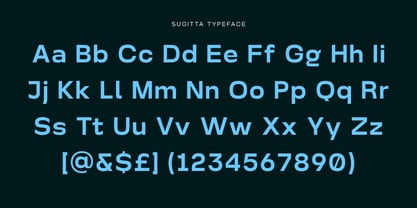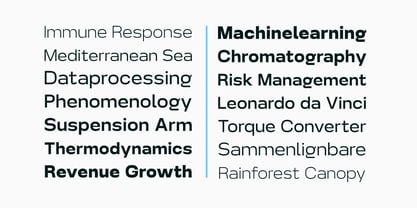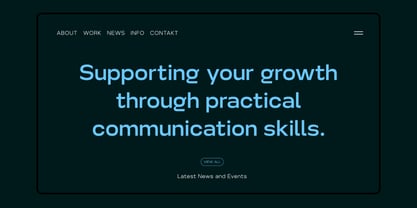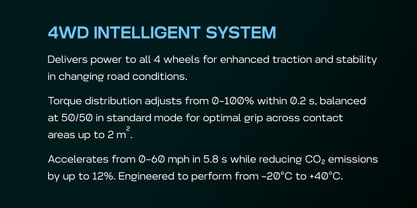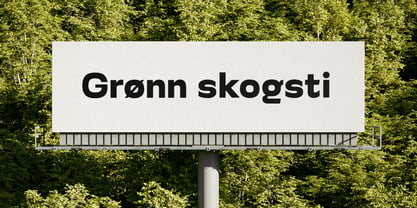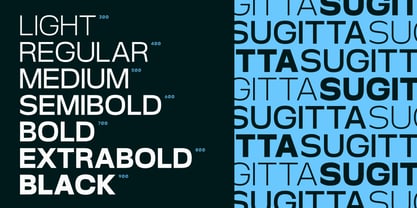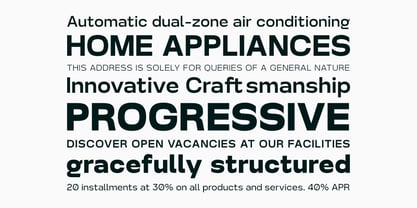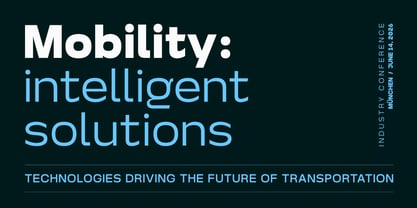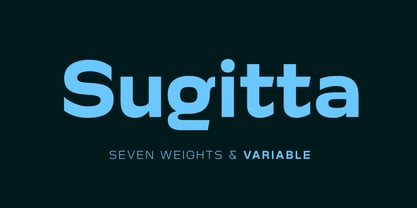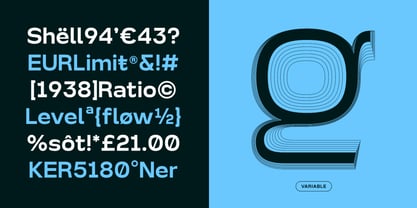
Sugitta
La familia tipográfica Sugitta fue diseñada por Szymon Mandziarz y publicada por ESEM Type. Sugitta contiene 8 estilos y opciones de paquete familiar. Más información sobre esta familia
Sugitta is a modern geometric sans-serif designed for clarity, confidence and versatility. With seven carefully balanced weights and a fully functional variable version, it adapts seamlessly to branding, editorial, web and interface design. Its soft curves combined with precise structure create a clean yet friendly tone — ideal for communication-driven projects. Features: 7 weights (Light to Black) Variable font included Multilingual support Clean geometric construction Optimized for display and UI use Perfect for branding, websites, presentations, corporate identity and modern digital products.